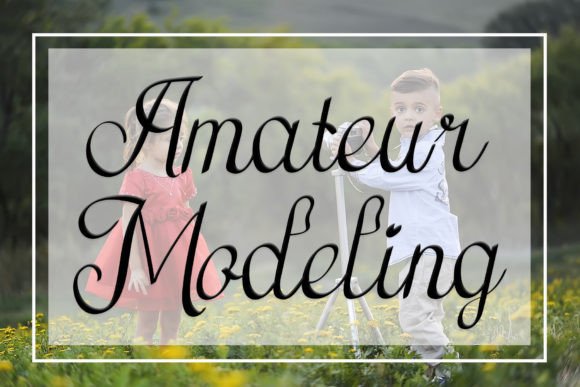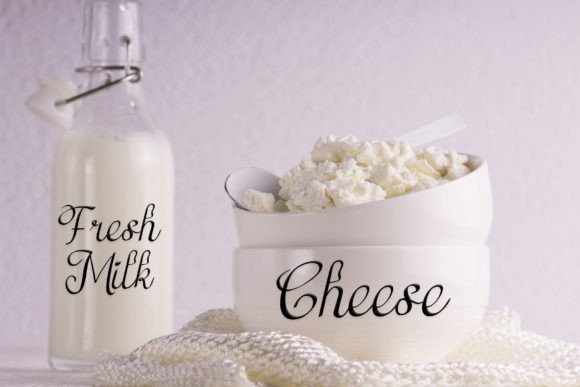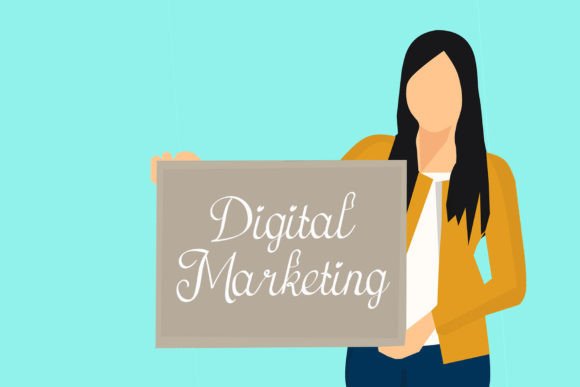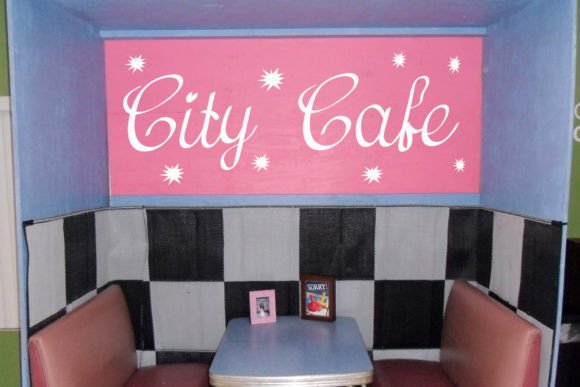
Amateur Modeling Font
A Flowing and Stylish Script Font
Amateur Modeling is a modern script font created to bring elegance and style to your creative work. Each letter features smooth curves and natural movement that make your text feel polished and unique. The balanced shapes and flowing design ensure that every word looks refined and professional.
Whether you’re working on digital graphics or printed materials, Amateur Modeling helps your projects stand out beautifully.
Amateur Modeling is a versatile font that adapts seamlessly to many uses. It’s perfect for logos that need a personal, handwritten touch. The elegant script makes your brand feel authentic and approachable.
Use Amateur Modeling for wedding invitations, save-the-date cards, and event signage. The graceful style adds romance and sophistication to every detail.
This font also shines on product packaging, boutique labels, and handmade goods. The clean, flowing lines bring a premium feel to your designs.
Amateur Modeling is ideal for social media graphics, blog headers, and Pinterest pins. No matter where you use it, the font delivers a fresh, modern look that captures attention.
The font includes uppercase and lowercase letters, numbers, and punctuation marks. Ligatures are included so your text flows naturally and feels cohesive.
Clear, Elegant, and Easy to Read
Even with its decorative style, Amateur Modeling remains clear and legible at any size. The balanced spacing between letters ensures your text looks organized and professional, whether you’re creating big headlines or small captions.
Many designers like pairing Amateur Modeling with a clean sans-serif font for contrast. Use Amateur Modeling for titles and the sans-serif for supporting text. This approach helps guide the reader’s eye and keeps your layouts clean and modern.
To showcase Amateur Modeling’s elegance, use neutral backgrounds and soft color palettes. Shades like ivory, blush, and warm gray help the smooth curves stand out without distraction.
When designing wedding materials or upscale branding, consider adding subtle illustrations or watercolor elements to enhance the font’s sophisticated feel. For social media content, keep your layouts simple so the script remains the main focus.
Think about the mood you want to create. Amateur Modeling is perfect for designs that should feel romantic, stylish, and personal.
Amateur Modeling is more than just a script font. It’s a creative tool that transforms ordinary text into something beautiful and memorable. Its clean curves and flowing lines bring sophistication to any project.
Adding Amateur Modeling to your font collection means you’ll always have a reliable option for creative work. From weddings and branding to social media and packaging, this font adapts effortlessly to your ideas.